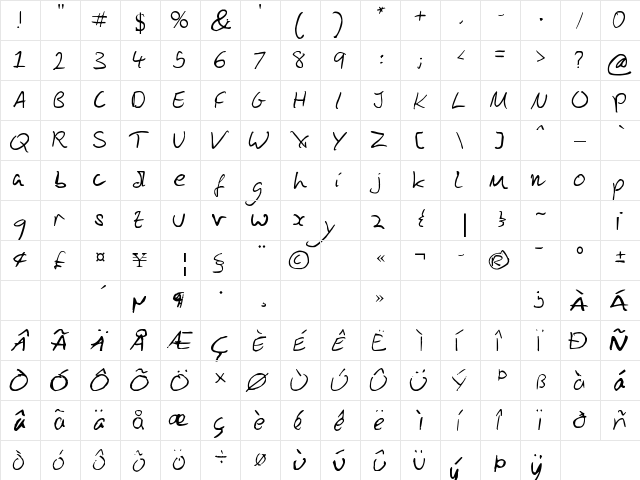
Melisende Handwriting Script Regular
Design Context for Melisende Handwriting Script Typeface
Melisende Handwriting Script flows with the natural rhythm of handwritten lettering, making it ideal for designs that call for warmth and personal expression.
Font Pairing: Combine Melisende Handwriting Script with a simple geometric sans for maximum contrast — the tension between flowing curves and clean structure is a classic typographic pairing.
Pro Tip: Use Melisende Handwriting Script for short runs of text — names, titles, or taglines. Extended body copy in script faces tires the eye quickly.